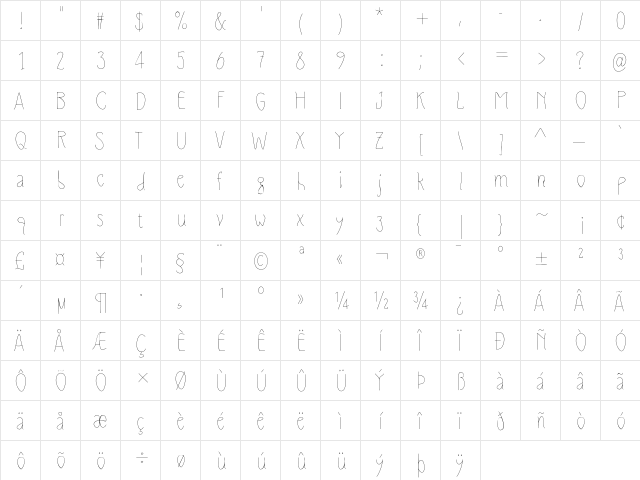
SlimamifLight Light
Design Context for SlimamifLight Typeface
SlimamifLight is a composed and adaptable typeface that performs quietly and consistently across a wide range of design contexts. The delicate stroke weight brings airiness and refinement to layouts.